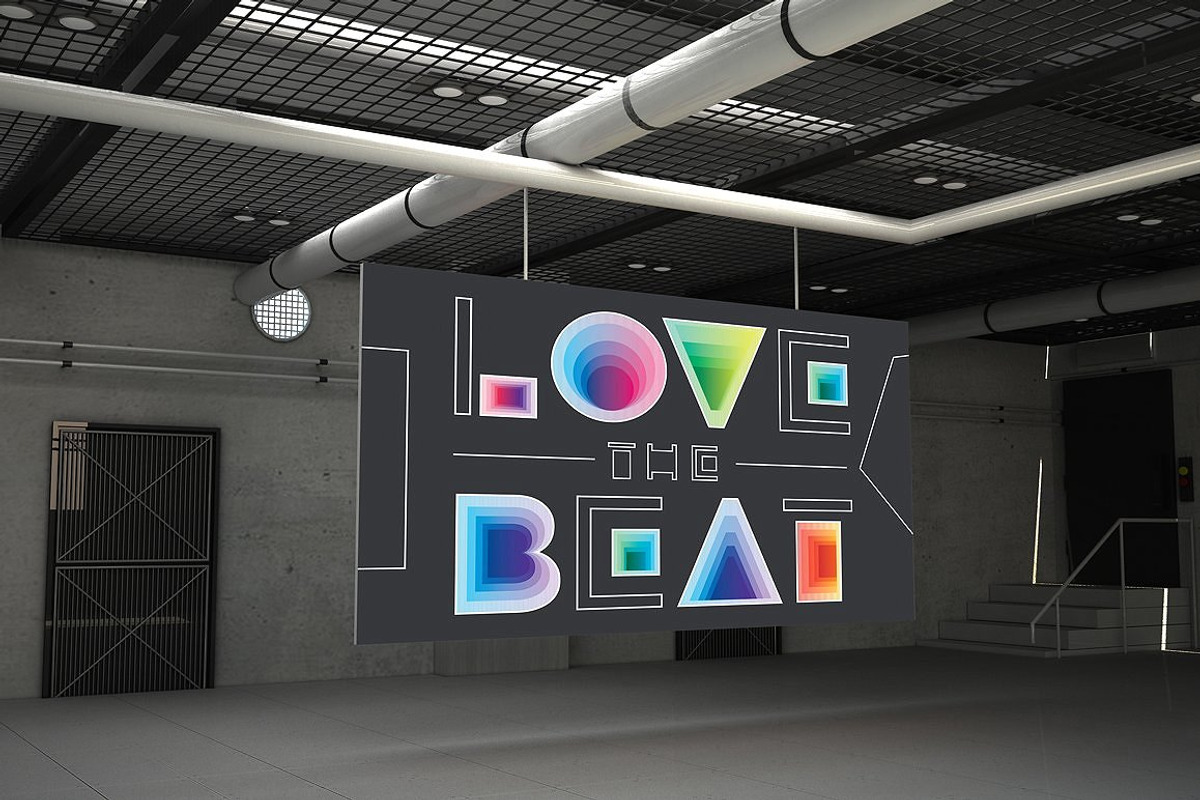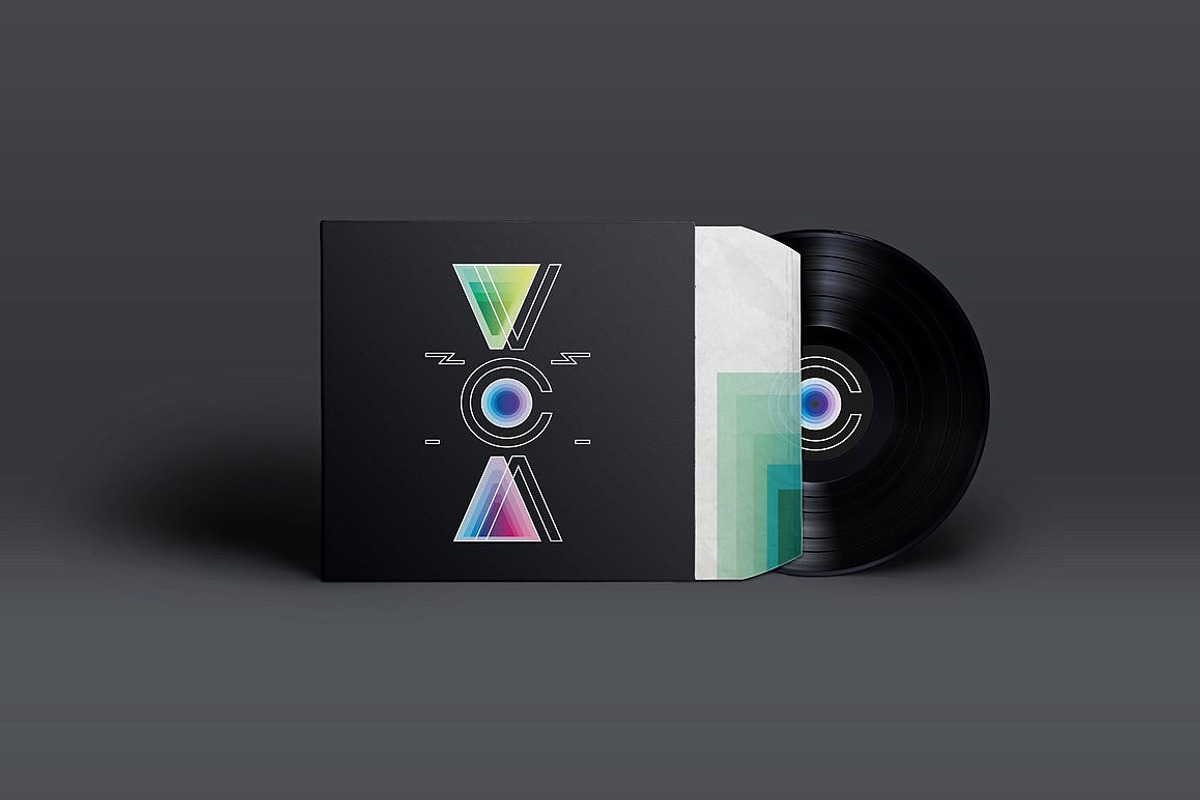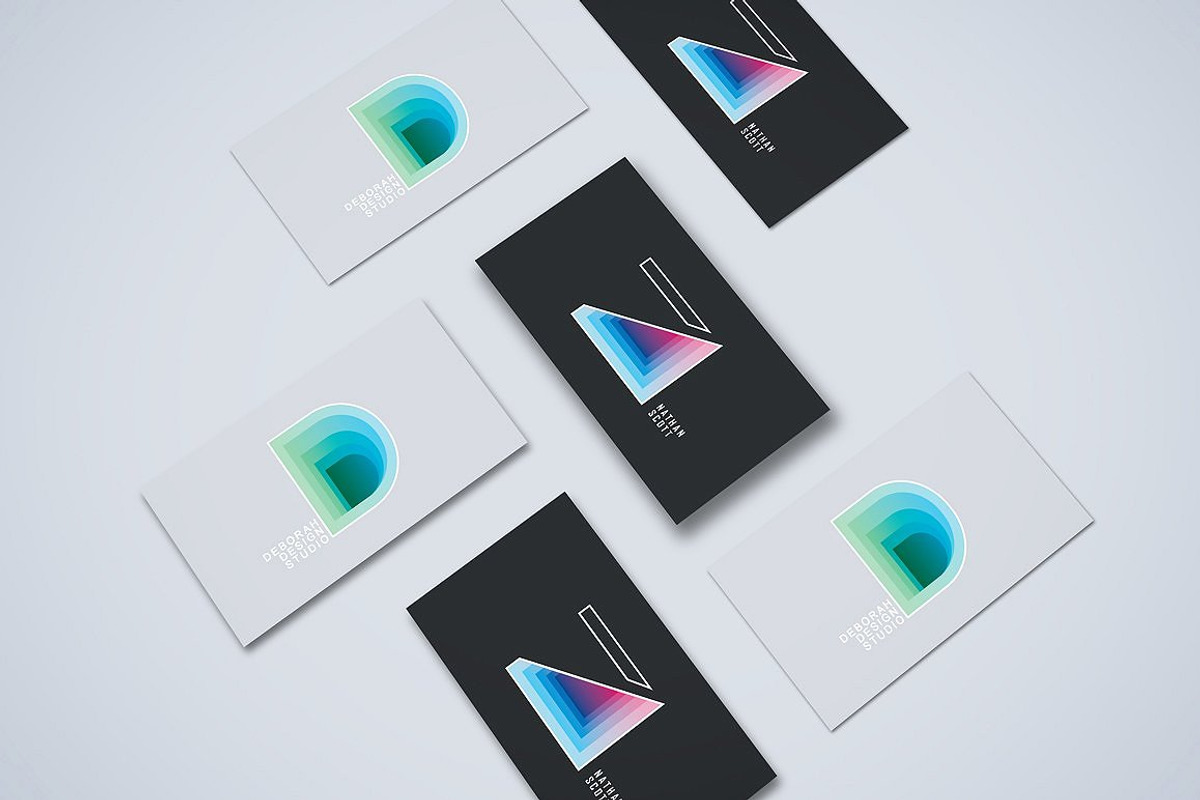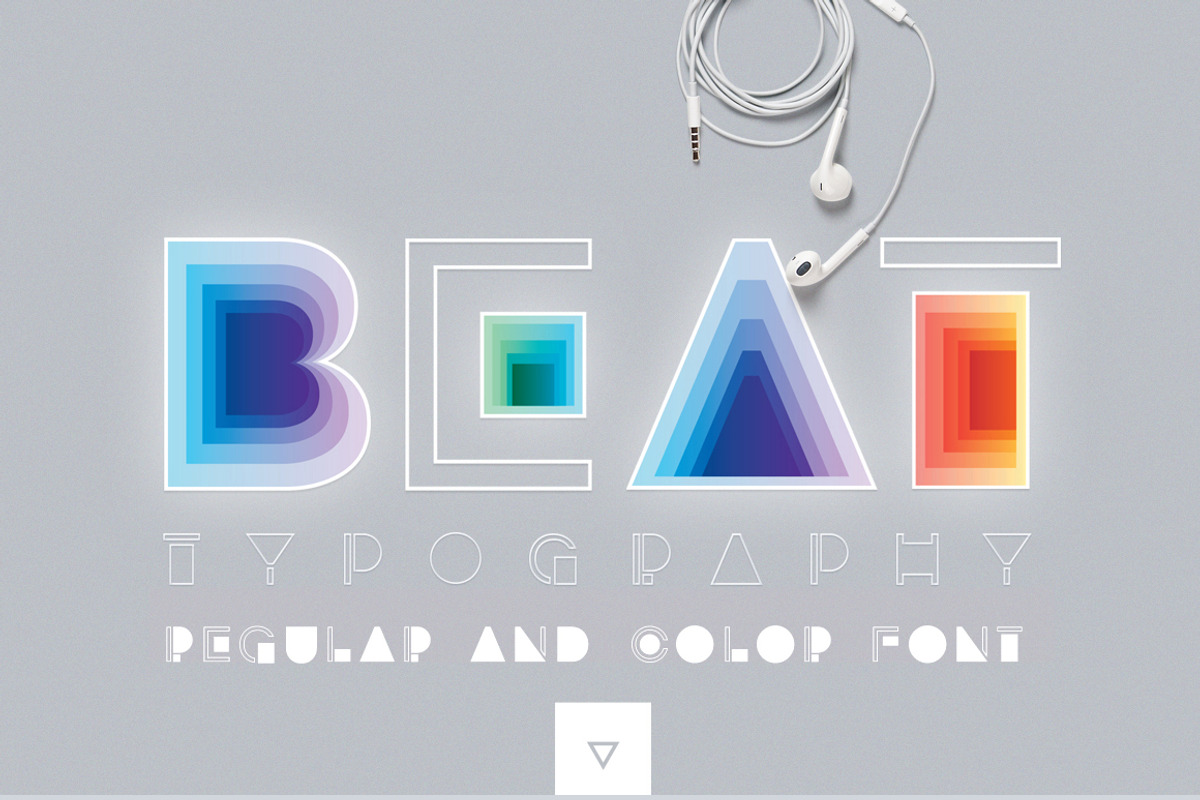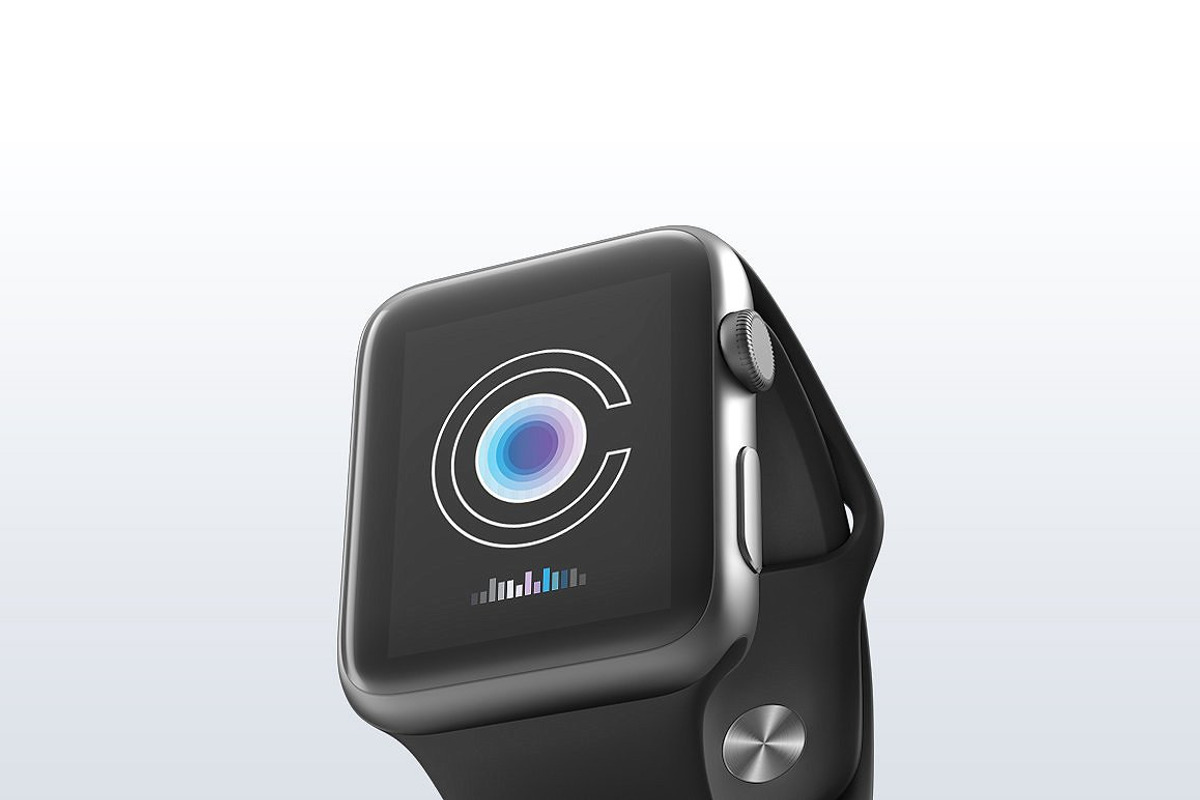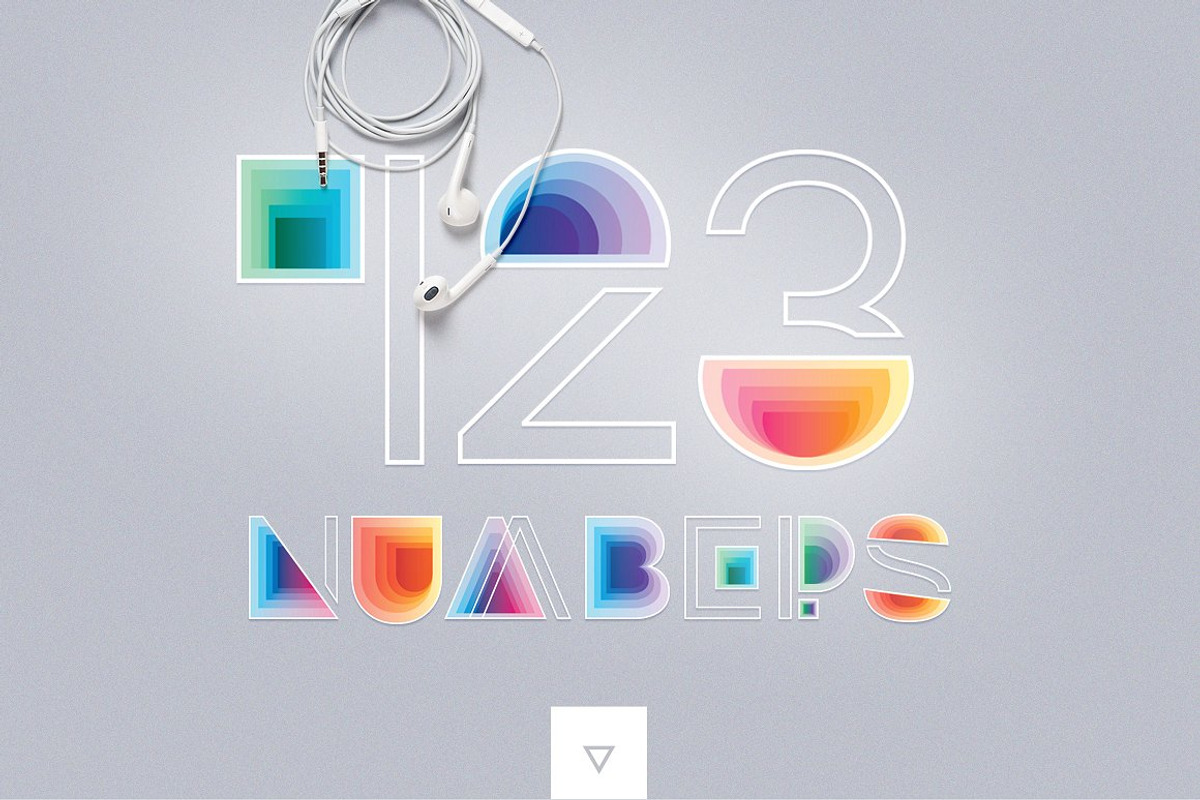
BEAT typography- SVG Color Font
BEAT typography- SVG Color Font by Polar Vectors is a font selected for branding, posters, packaging, typography.
Why BEAT typography- SVG Color Font is worth a look
BEAT typography- SVG Color Font by Polar Vectors fits naturally into Branding, posters, packaging, typography.